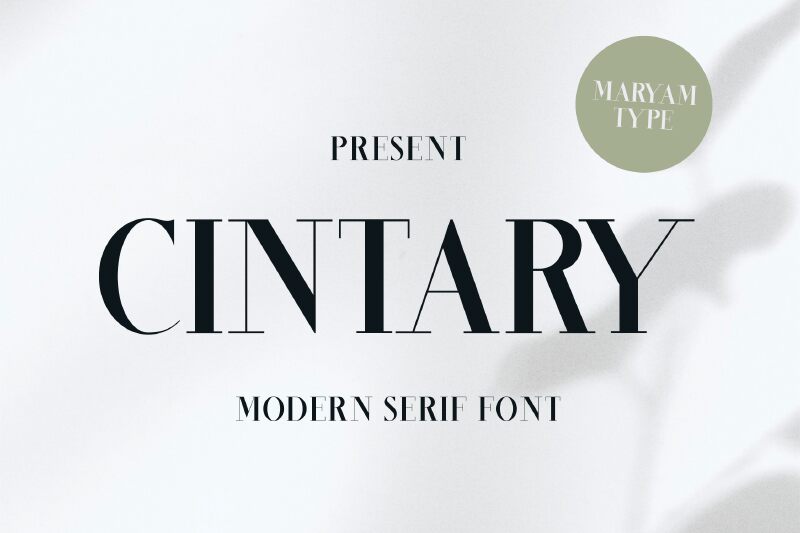
Unveil the sophistication of Cintary-a modern serif font crafted with finesse by Maryamtype Studio. With its semi-light weight and contemporary flair, Cintary stands as a beacon of elegance for the discerning designer. Its refined curves and subtle contrasts blend seamlessly into luxurious logos, while its timeless serifs lend an air of gravitas to book and movie titles.
Perfect for fashion-forward brands, upscale magazines, and chic clothing lines, Cintary offers a versatile canvas for your creative endeavors. Whether it's to captivate in headlines or charm in quotes, this typeface promises to elevate your projects with its distinctive character and style. Embrace the allure of Cintary Modern Serif Font-where every stroke is an invitation to artistry.
CINTARY